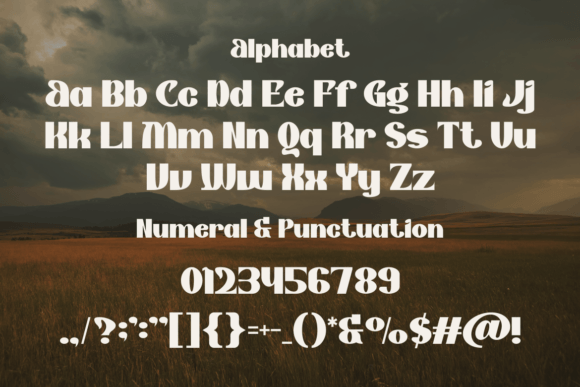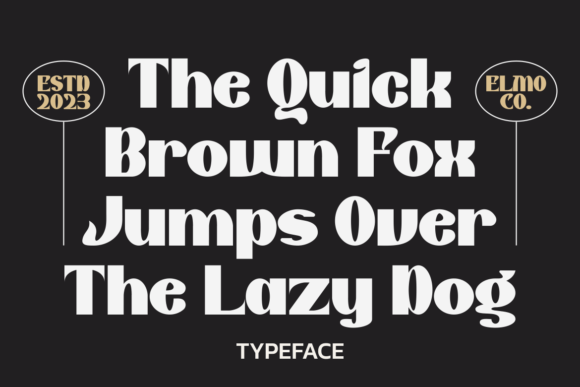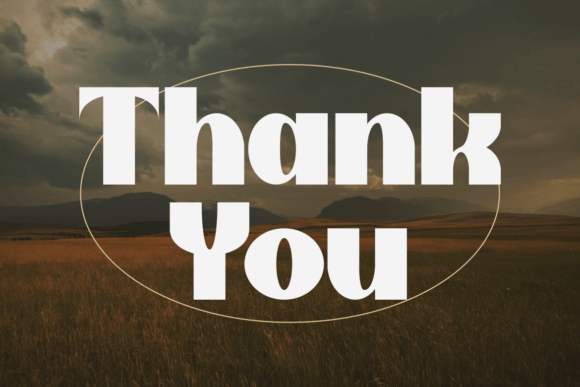
Unlock the Power of Modern Design with Analof Elmo Font
Do you remember that moment when you finally nailed the perfect design concept? The one that makes you feel like you’re on top of the world? For designers, those moments are what make all the hard work worth it. And what if I told you that there’s a font that can help you create those moments more often? Enter Analof Elmo Font, a stunning display font that’s sure to elevate your designs to the next level.
With its sleek lines and distinctive letterforms, Analof Elmo Font is the perfect choice for designers looking to add a touch of sophistication and modernity to their work. Whether you’re working on a branding project, creating packaging for a new product, or simply want to make a statement with a headline, Analof Elmo Font is the perfect tool to help you achieve your design goals.
- Unique Characteristics: This font features a playful, childlike appearance with rounded edges and soft lines, making it suitable for children’s books, educational materials, and other related applications.
Overall, I’m quite impressed with the Analof Elmo Font. ✨ It’s a cute and playful font that’s perfect for creating child-friendly designs or adding a touch of whimsy to your projects. The font’s rounded edges and bold lines give it a distinctive look that’s sure to grab attention.
- The Analof Elmo Font is highly customizable, allowing you to adjust the font’s size, color, and style to fit your design needs.
- The font’s bold lines and rounded edges make it easy to read, even at smaller sizes.
- The Analof Elmo Font is available in a range of weights and styles, giving you plenty of options for creating unique and interesting designs.
- ⚠️ The Analof Elmo Font may be too playful or childish for some designs, which could limit its use in more professional or corporate settings.
- ⚠️ The font’s bold lines and rounded edges can make it difficult to pair with more minimalist or simple designs.
- ⚠️ The Analof Elmo Font may not be suitable for use in small text sizes or in situations where clarity is critical.
Overall, I’d give the Analof Elmo Font 4 out of 5 stars. While it may have some limitations, it’s a fun and versatile font that’s perfect for creating engaging and playful designs.
The Analof Elmo Font is perfect for:
- Children’s book illustrations and designs.
- Playful advertising and marketing materials.
- Whimsical website and social media graphics.
Comic Sans MS is a playful, sans-serif font designed to resemble handwriting. It’s suitable for informal designs, children’s materials, and friendly communications. This font is more casual and cursive compared to Analof Elmo Font, which is more rounded and block-like.
Great Vibes is a modern, script font that’s perfect for adding a touch of elegance to your designs. It’s ideal for luxury brands, invitations, and other high-end materials. Great Vibes is more refined and sophisticated compared to Analof Elmo Font, which has a more childlike and playful feel.
Pacifico is a beautiful, handwritten font that evokes a sense of relaxation and tranquility. It’s suitable for beach-themed designs, travel materials, and wellness brands. Pacifico has a more organic and flowing feel compared to Analof Elmo Font, which is more block-like and geometric.
Ostrich Sans is a modern, sans-serif font with a playful and quirky feel. It’s ideal for digital products, video games, and other fun and interactive materials. Ostrich Sans is more geometric and angular compared to Analof Elmo Font, which has a more rounded and childlike feel.
1. Whimsical Invitation Card
Design a colorful invitation card for a children’s birthday party using Analof Elmo Font.
How to use Analof Elmo Font: Use the Analof Elmo Font to create the party invitation’s headline, such as “Elmo’s Birthday Bash!” in a bold and playful way.